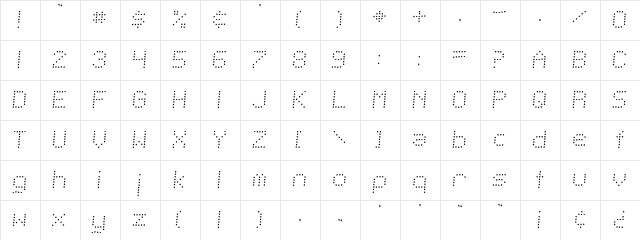
SF Telegraphic Light Italic Font Preview
Design Context for SF Telegraphic Light Typeface
SF Telegraphic Light takes a measured approach to typography — its balanced proportions and neutral character make it a reliable workhorse for both digital and print work. The slanted form adds forward momentum and visual energy. The delicate stroke weight brings airiness and refinement to layouts.
Pro Tip: Try SF Telegraphic Light for annotation and caption copy alongside an upright companion — the contrast in angle creates a dynamic but ordered typographic system.